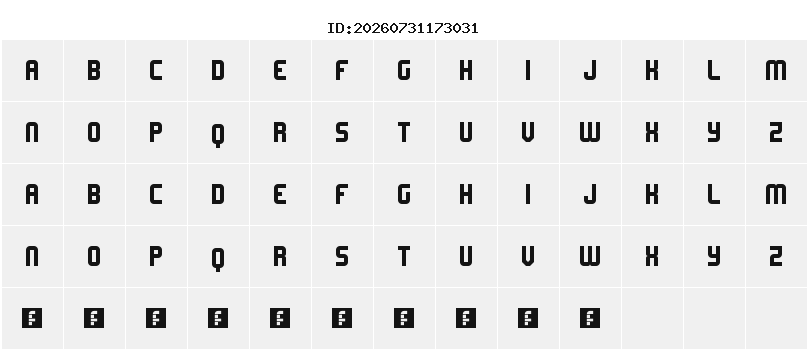
Lemons Preview
• Font Name: Lemons
About Lemons.ttf
Lemons.ttf is a modern, elegant sans-serif font designed for ultimate readability and visual harmony. Perfect for branding, headlines, web design, and print materials.